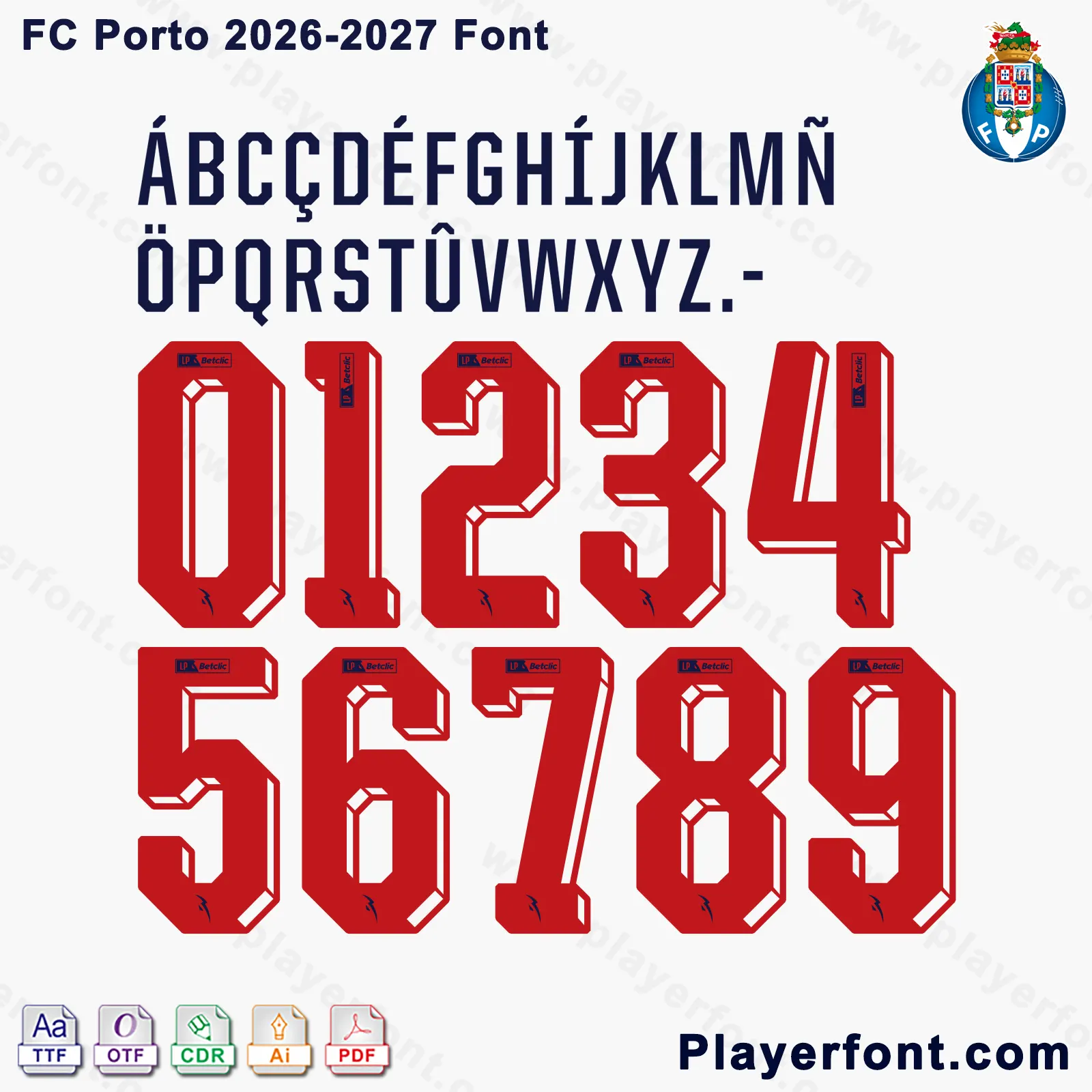
Elevate your sports jersey mockups, football custom graphics, and vector apparel printing projects with the high-quality FC Porto 2026-2027 Font Download. Masterfully engineered by Playerfont.com, this high-performance typography set replicates the official-style numbers and distinct angular lettering featured on the pitch for Dragões kit designs during the 2026-2027 season.
Key Typography Features & Character List:
This typography pack is fully optimized to support international player rosters and league printing requirements:
Bold Condensed Lettering: Contains an elongated navy uppercase character set with sharp geometric serifs, condensed proportions, numbers (0-9), hyphens, and periods.
Advanced International Accent Support: Includes an expansive set of diacritics spanning Basic Latin and Latin-1 Supplement (such as Á, Ç, É, Í, Ñ, Ö, Ö, Š, and Ú) ensuring flawless rendering for global player roster names.
Authentic 3D Visual Details: The jersey numbers feature bold red bodies with white dimensional bevel outlines, LP Betclic top sponsor patches, and the official Liga Portugal emblem detailed near the bottom of each number.
| Design Feature |
Red 3D Block Body with White Bevel Accent, Top Sponsor Logo & Base Crest |